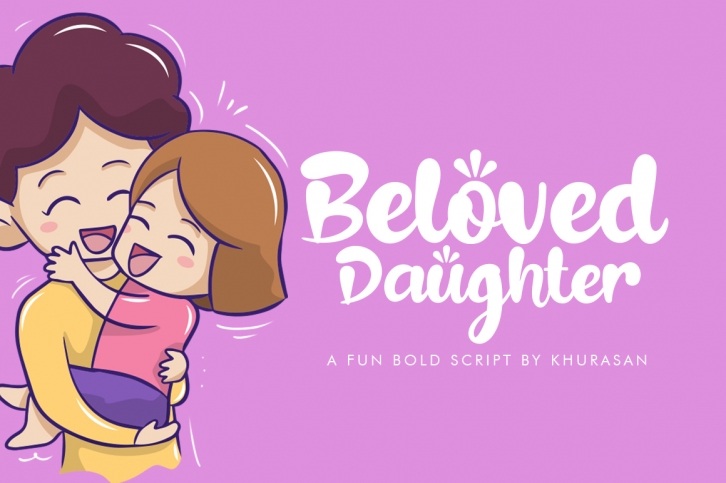
Beloved Daughter FONT Download
Beloved Daughter Font Download
Beloved Daughter is a gorgeous font that was realeased on November 10, 2019. The font can be used in many style contexts and design environments. Perfect for invitations, magazines, websites, logos, and more! It was designed by khurasan and the file size is 10.31 MB. Thanks for checking out this font!